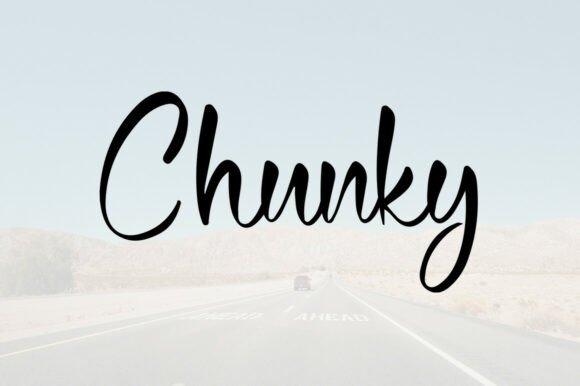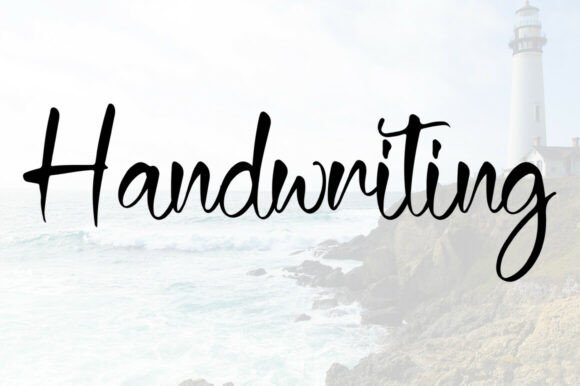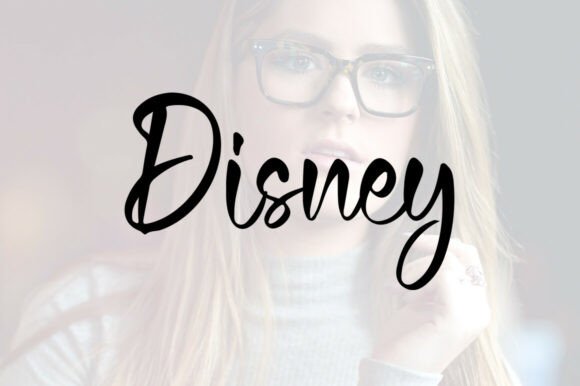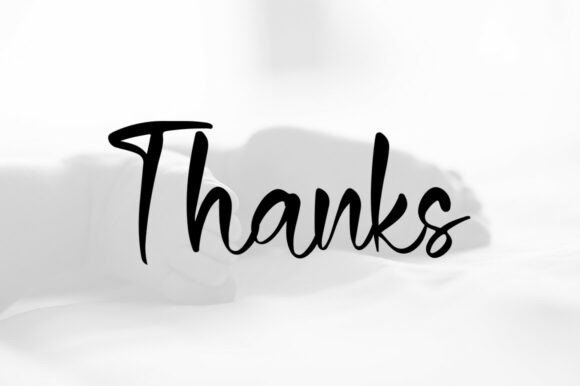
Introducing Blushing Font: The Epitome of Elegance and Sophistication
In the world of typography, few fonts manage to convey the essence of elegance and sophistication as effortlessly as Blushing Font. This delicate, elegant, and flowing handwritten font has captured the hearts of designers and crafters alike, and for good reason. With its beautiful and well-balanced characters, Blushing Font is a versatile addition to any design project, seamlessly matching a wide pool of designs.
The Characteristics of Blushing Font
Blushing Font boasts a unique set of characteristics that set it apart from other fonts in its category. Its handwritten nature gives it a personal and intimate feel, making it perfect for projects that require a touch of warmth and personality. The font’s delicate and flowing lines evoke a sense of elegance, while its well-balanced characters ensure that it remains highly legible, even at smaller font sizes.
Why Designers and Crafters Love Blushing Font
So, why has Blushing Font become a favorite among designers and crafters? The answer lies in its versatility and adaptability. Whether you’re working on a wedding invitation, a branding project, or a craft tutorial, Blushing Font is the perfect choice. Its elegant and sophisticated vibe makes it ideal for projects that require a touch of luxury and refinement.
One of the standout features of Blushing Font is its ability to complement a wide range of design projects. From:
- Craft tutorials and patterns
- Blogging and social media graphics
…to any project that requires a touch of elegance and sophistication, Blushing Font is the perfect choice.
Tips for Using Blushing Font Effectively
To get the most out of Blushing Font, here are a few tips to keep in mind:
- Pair it with bold fonts for a striking contrast
- Use it in combination with watercolor or floral elements for a romantic look
- Experiment with different font sizes and styles to add visual interest
- Don’t be afraid to add embellishments and flourishes to give it a personal touch
In conclusion, Blushing Font is a true gem in the world of typography. Its delicate, elegant, and flowing handwritten design makes it perfect for a wide range of design projects, from wedding invitations to branding and packaging design. With its versatility, adaptability, and timeless elegance, Blushing Font is sure to remain a favorite among designers and crafters for years to come.